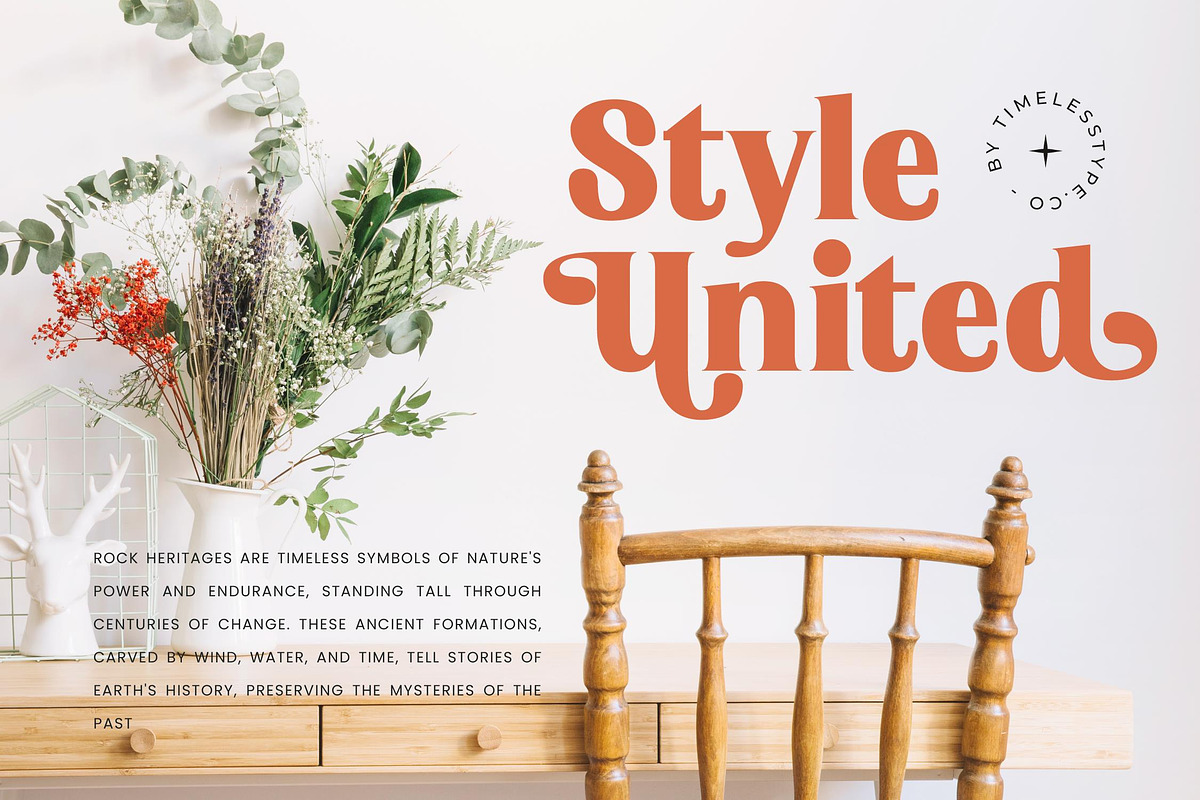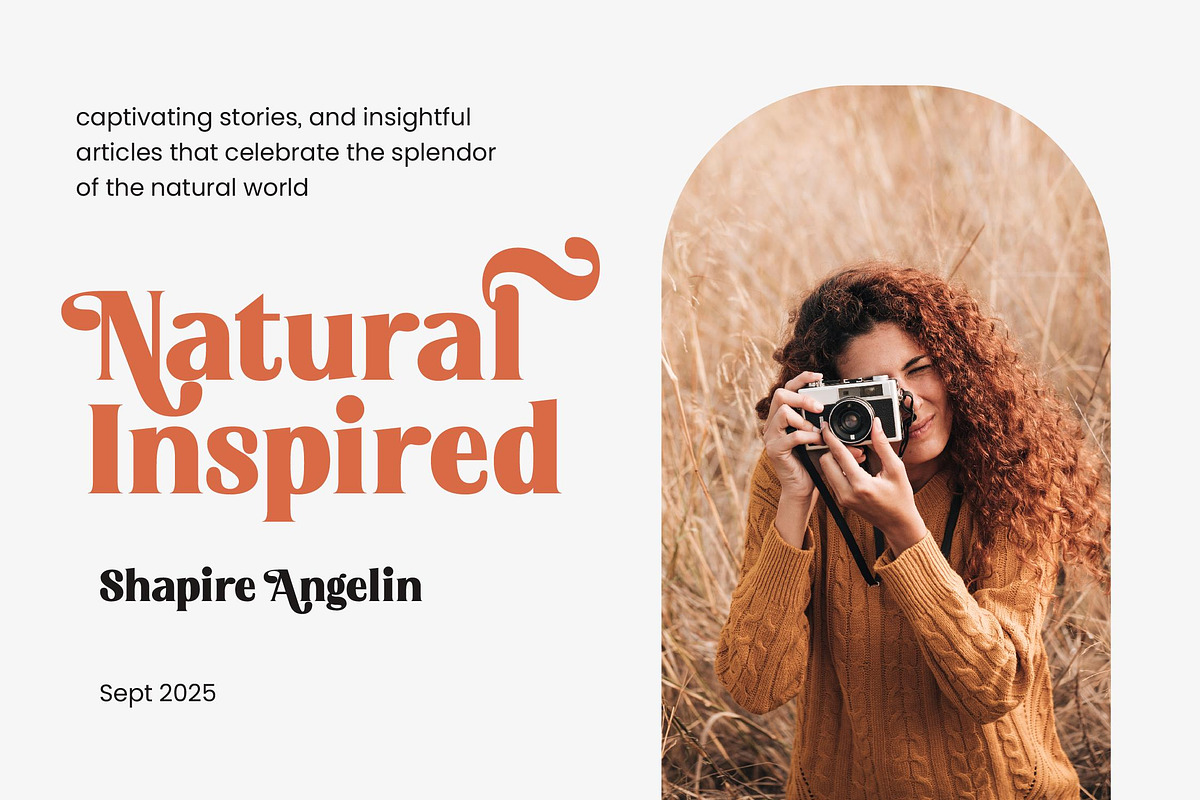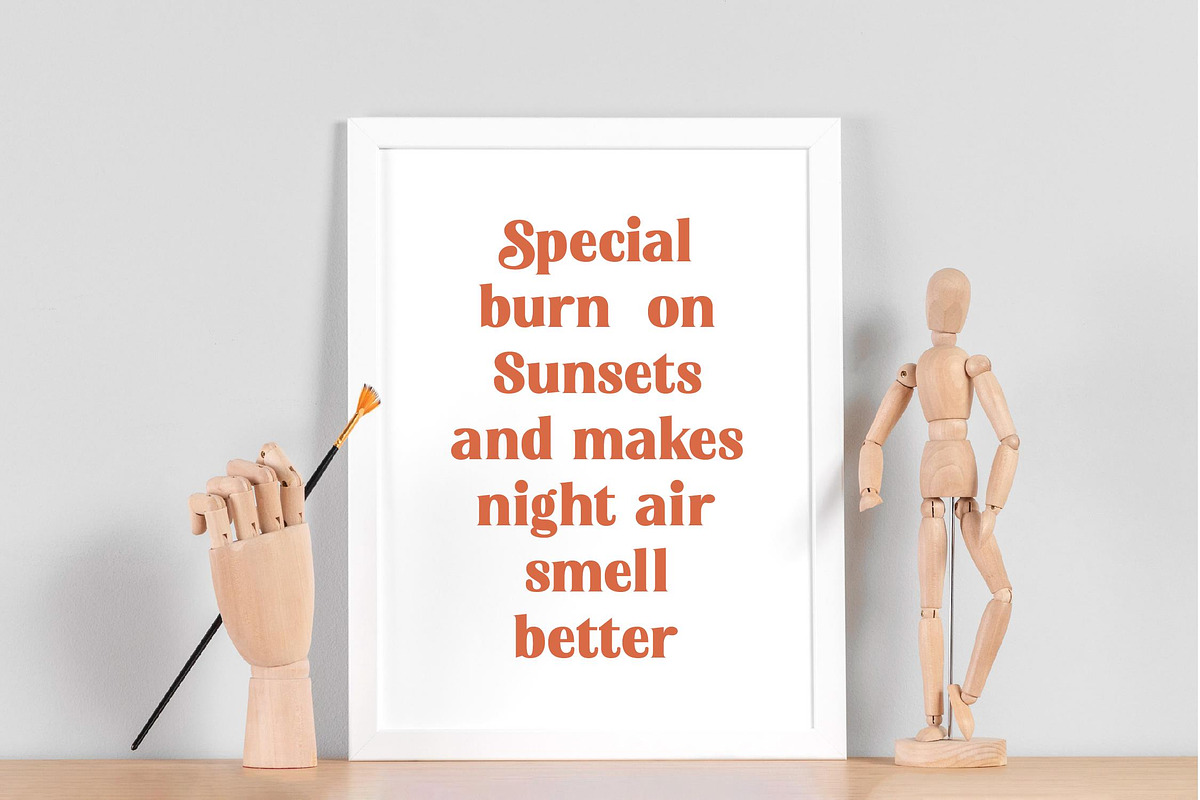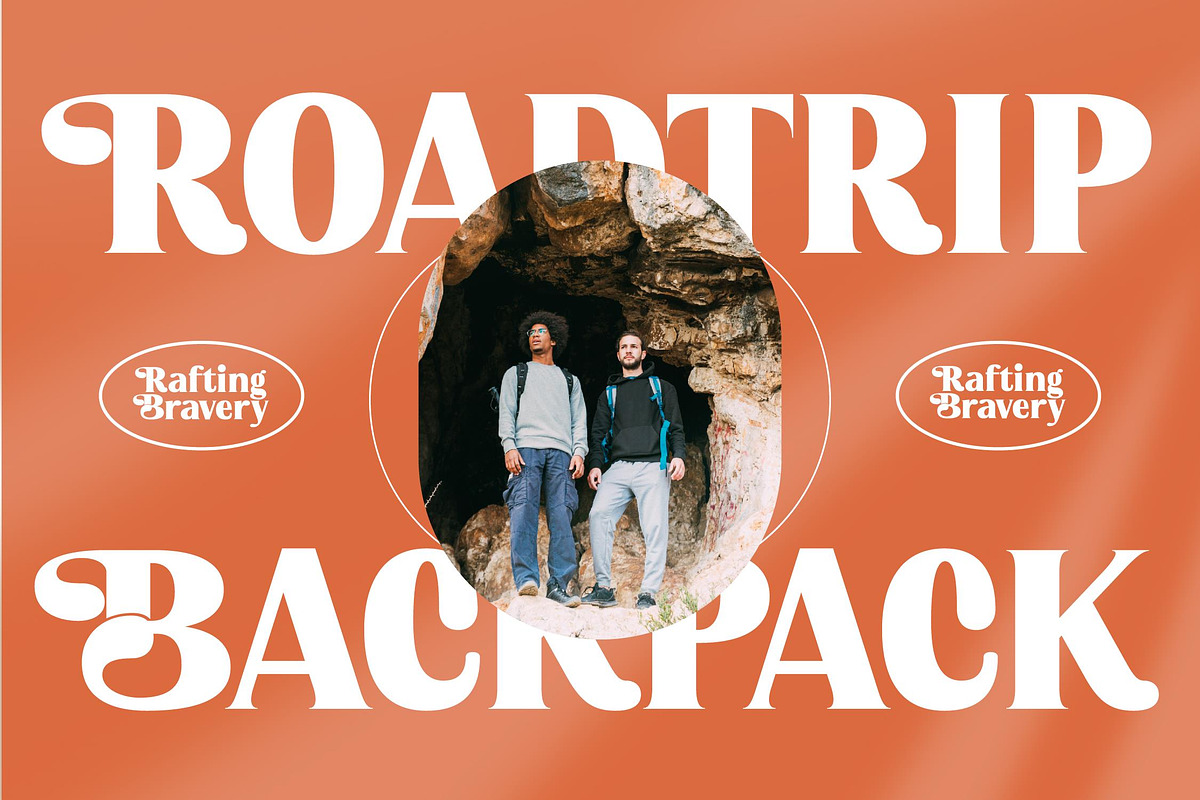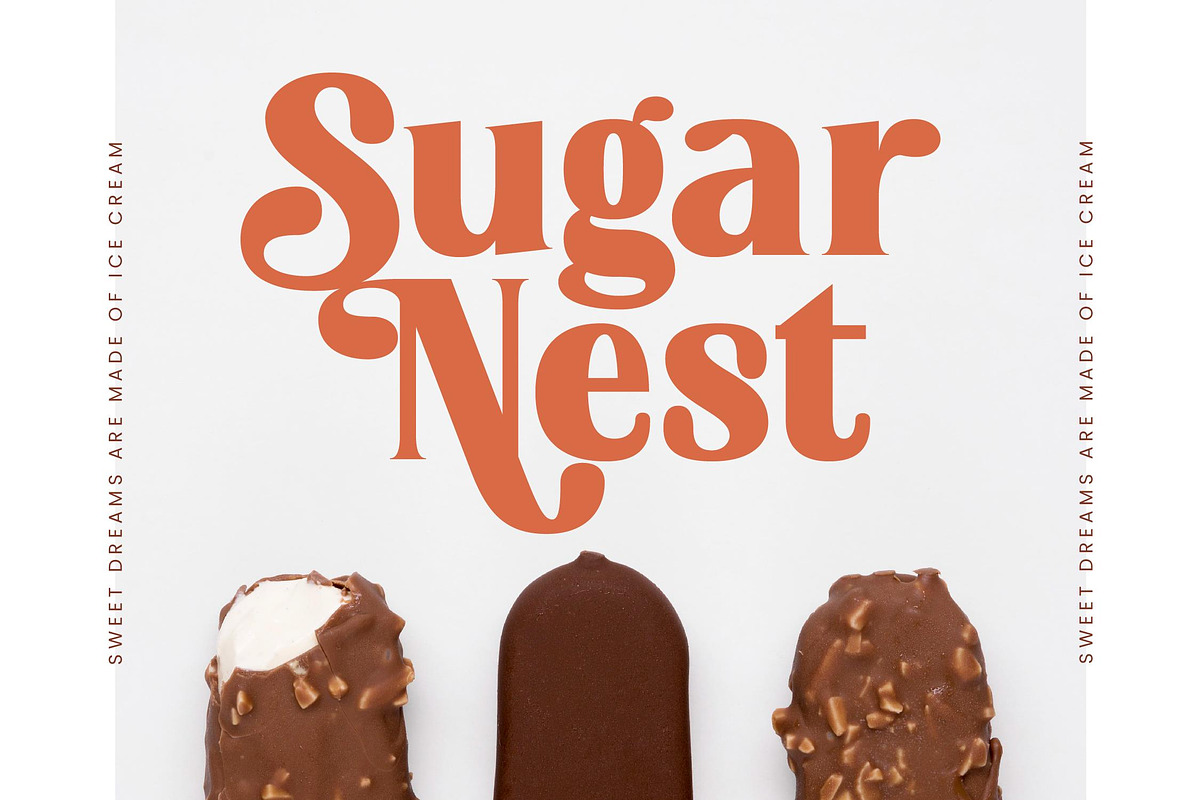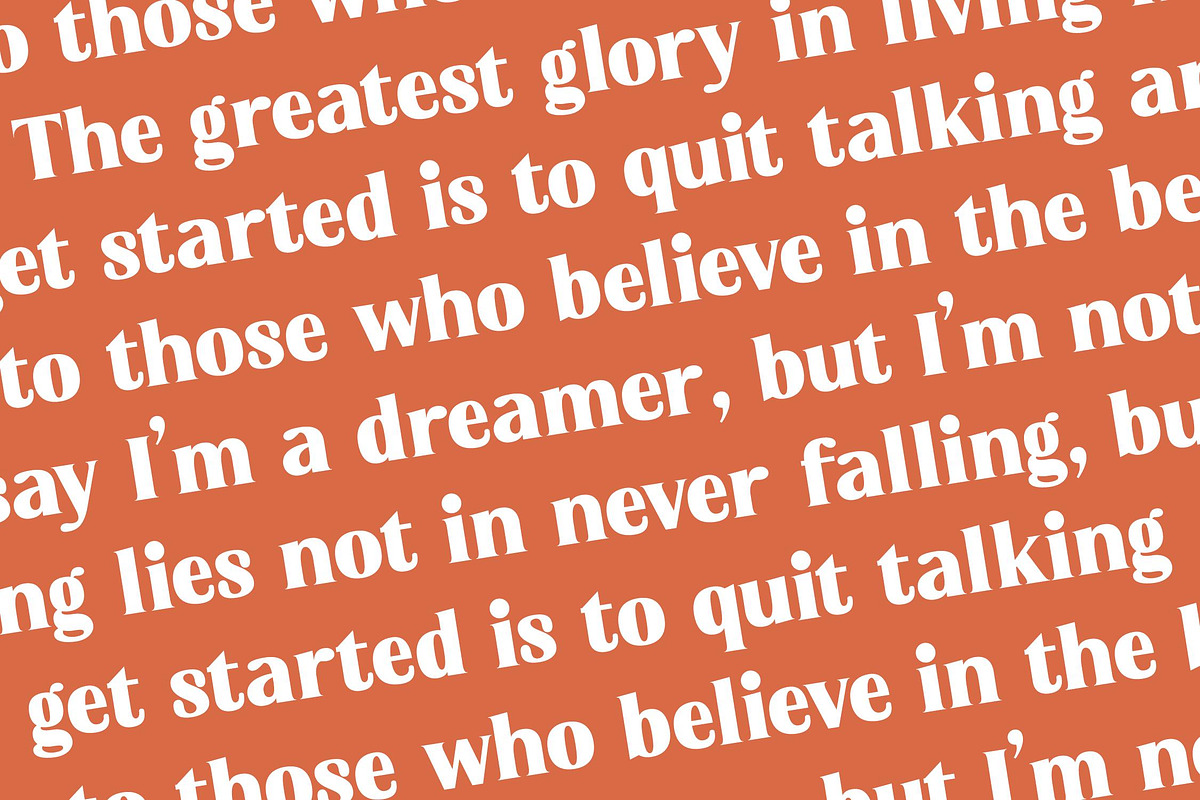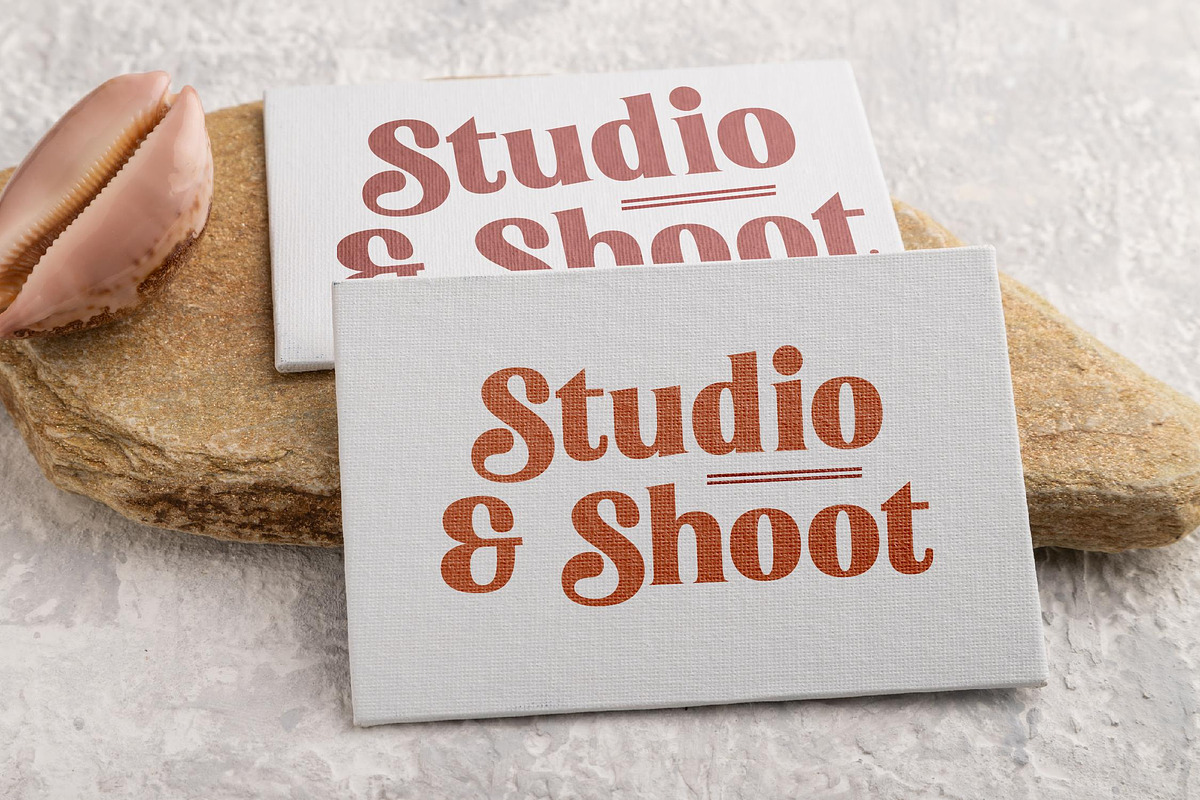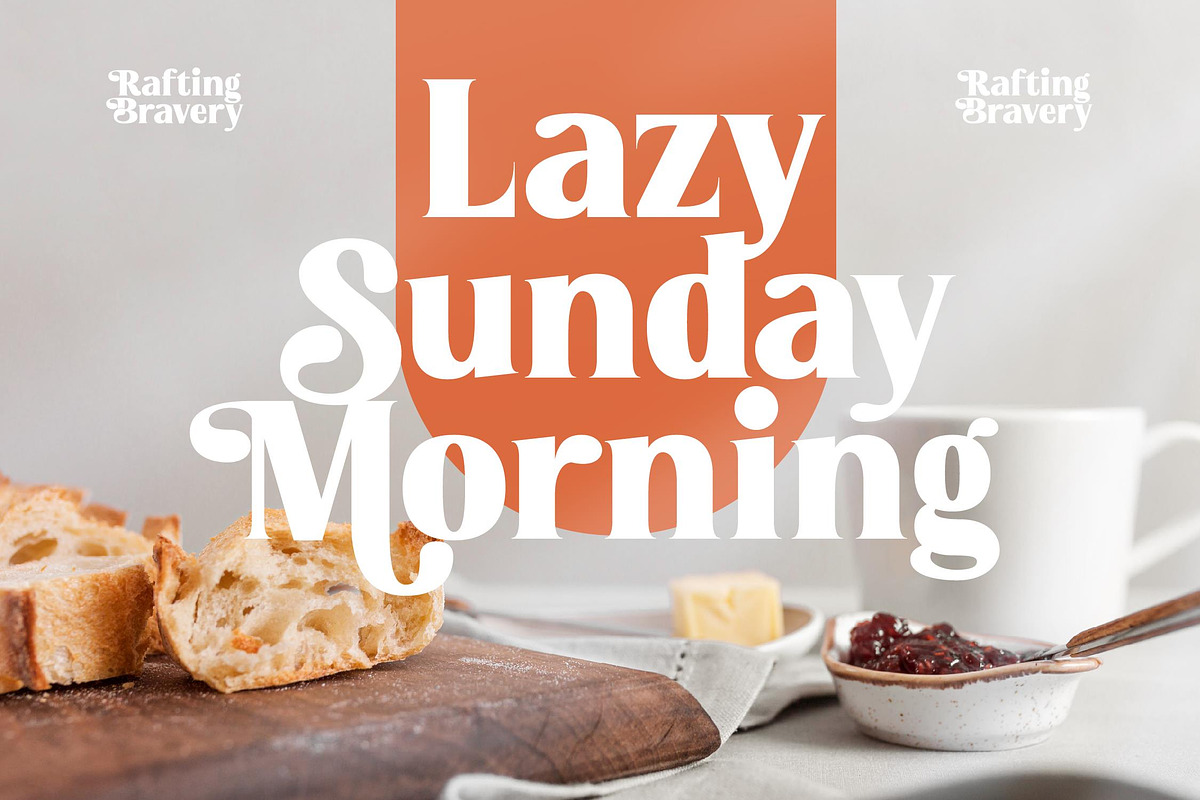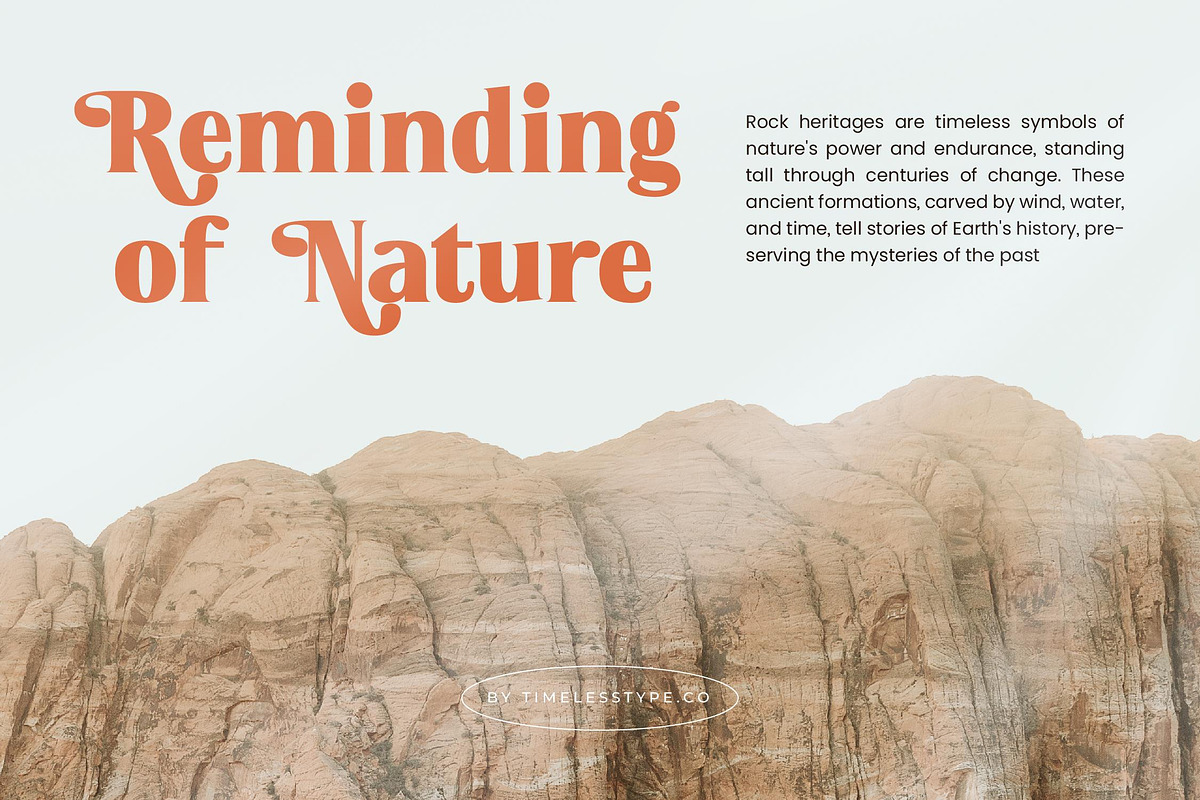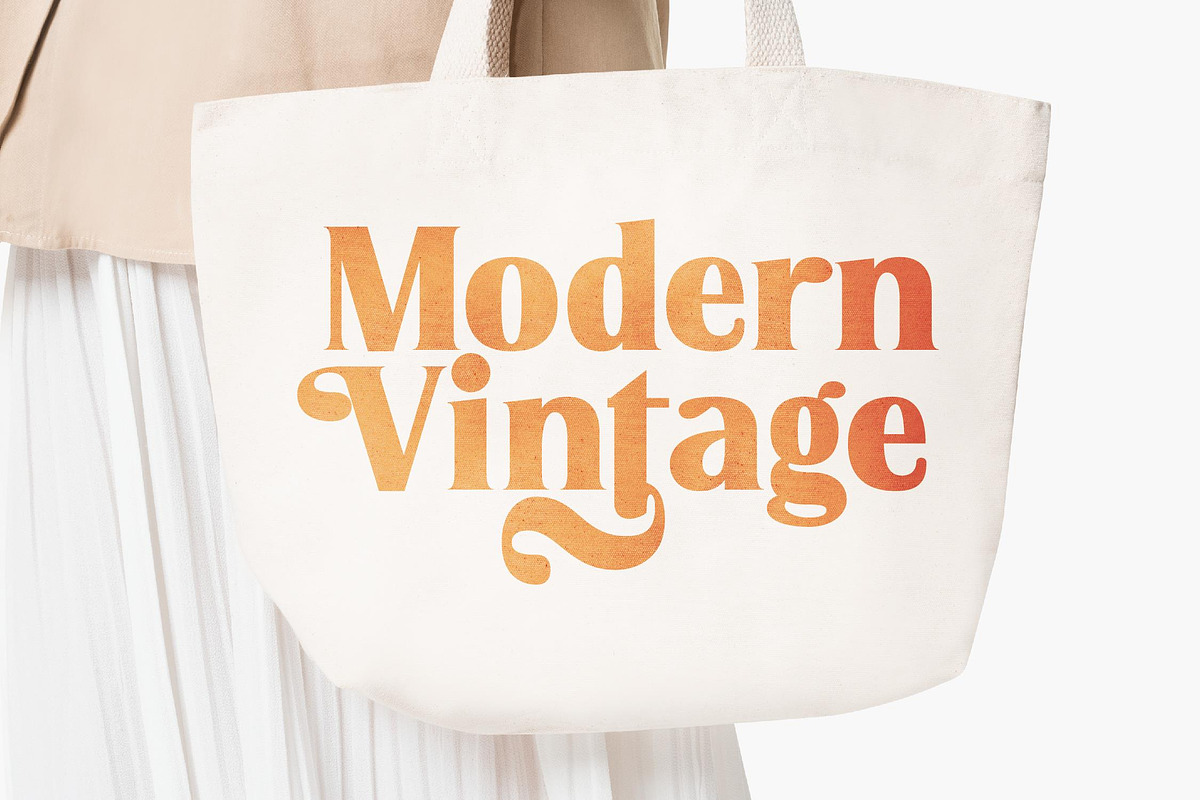
Devika Sunset Luxury Serif Font
Experience the warmth of a golden hour glow captured in every curve of Devika Sunset. This font is a love letter to sophisticated design, blending timeless elegance with a contemporary edge.
Inspired by the soft, painterly hues of a Mediterranean horizon, Devika Sunset draws its aesthetic from the intersection of retro nostalgia and modern minimalism. It evokes a sense of tranquil luxury, mirroring the rhythmic dance of shadows as the day turns to dusk.
This modern serif display is crafted to command attention while maintaining a graceful silhouette. Its luxury typography stems from a high-contrast serif design that balances thick, bold strokes with delicate, whispering hairlines, making it an essential editorial font for projects requiring a significant branding impact.
Perfectly aligned with the current modern serif trend, this typeface meets the demand for editorial display fonts that feel both organic and polished. It taps into the move toward character-driven typography where every letter tells a unique story of craftsmanship and style.
Transform your next logo design or branding project into a visual masterpiece that resonates with high-end audiences. Whether used in editorial layouts, boutique packaging, wedding stationery, or high-concept fashion lookbooks, its versatility ensures a premium finish across all mediums.
Unlock creative freedom with over 51 handcrafted alternates and unique swashes that allow for custom letter pairings. The family is fully equipped with ligatures and extensive multilingual support, including international characters to ensure your message reaches a global audience with ease.